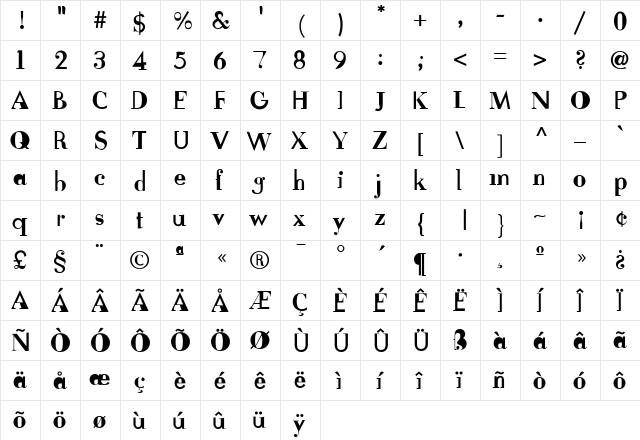
FudoniTwo Regular
Design Context for FudoniTwo Typeface
FudoniTwo is a composed and adaptable typeface that performs quietly and consistently across a wide range of design contexts.